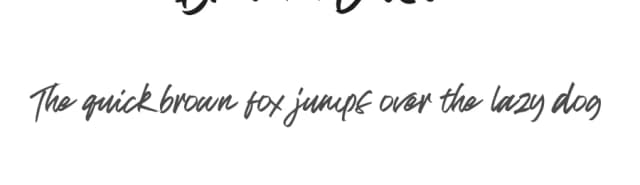
About Black Attacks Font
Black Attacks Specifications
| Font Family | Black Attacks |
| Full Name | Black Attacks |
| Glyph Count | 335 glyphs |
| PostScript Name | BlackAttacks |
| Designer | Fatmawati |
Black Attacks Font is a script font that shines as a display or heading face. Pair it with a clean sans-serif or serif font for body text β the contrast creates a clear hierarchy while the two styles stay balanced and easy to read.
Black Attacks Font